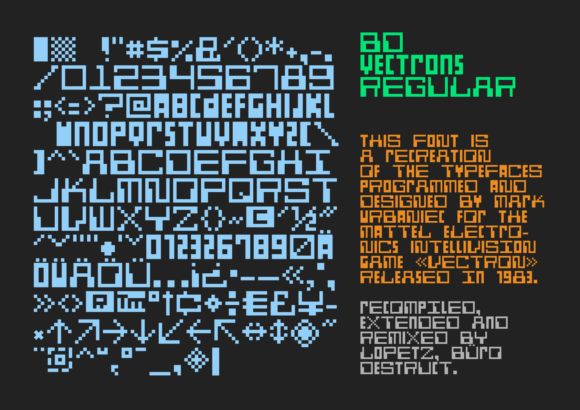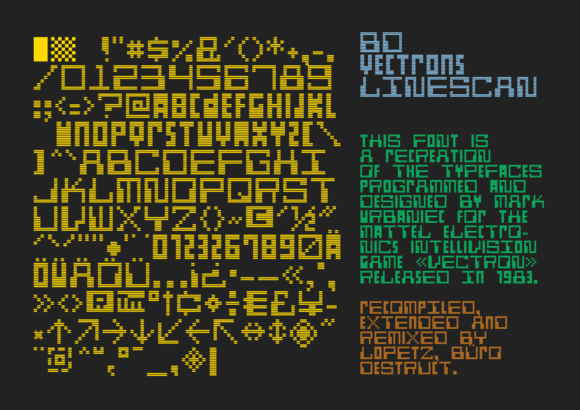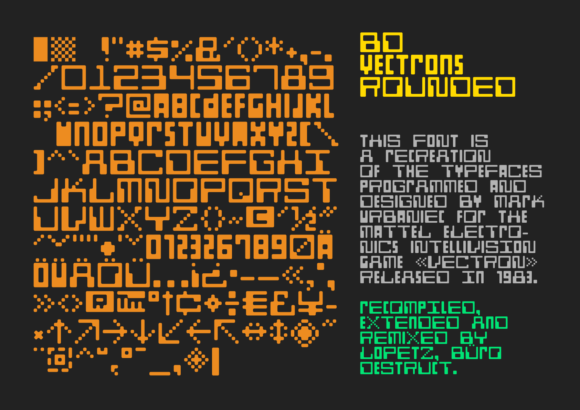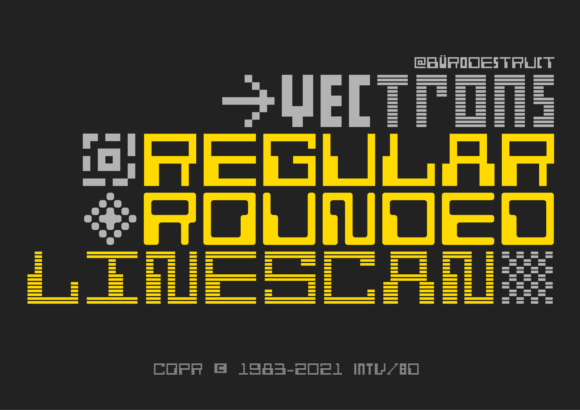
The Retro Charm of BD Vectrons Font: A Designer’s Delight
I’ll never forget the struggle I faced while working on a retro-futuristic game project. My designer brain was stuck on finding the perfect font that could transport players back to the 90s. That’s when I stumbled upon BD Vectrons Font, and it was love at first sight! 💻
Inspired by computational typewriting from the 90s, BD Vectrons Font brings a nostalgic charm that’s perfect for games, techno sleeves, computer-related artworks, sci-fi movies, and any other electronics-related materials. In this article, I’ll share my experience with this amazing font, its features, and how to make the most of it in your creative projects.
An Honest Review of BD Vectrons Font
- 💥 Unique retro aesthetic that’s hard to find in modern fonts
- 🎨 Versatile and adaptable to various design contexts
- 🔍 Intricate details that pay homage to old-school computational typography
While BD Vectrons Font is an excellent choice, there are a few things to keep in mind:
- 🤔 Limited character set, which might not be suitable for projects requiring a wide range of special characters
- ⚠️ Not ideal for body text or lengthy paragraphs, as it’s best used for headlines and titles
A Practical Guide to Using BD Vectrons Font
The Backstory of BD Vectrons Font
BD Vectrons Font was created by a talented designer who drew inspiration from the early days of computing. The font’s unique aesthetic is a nod to the old-school typography that once dominated computer screens and printouts. 💻
The designer’s passion for retro technology and typography led to the creation of BD Vectrons Font, which has since become a favorite among designers and crafters.
| Font Name | BD Vectrons Font |
| Author | Büro Destruct |
Q: What is BD Vectrons Font inspired by?
A: BD Vectrons Font is inspired by computational typewriting from the 90s, making it perfect for retro-futuristic designs.
Q: Is BD Vectrons Font suitable for body text?
A: No, BD Vectrons Font is best used for headlines and titles, as it’s not ideal for lengthy paragraphs or body text.